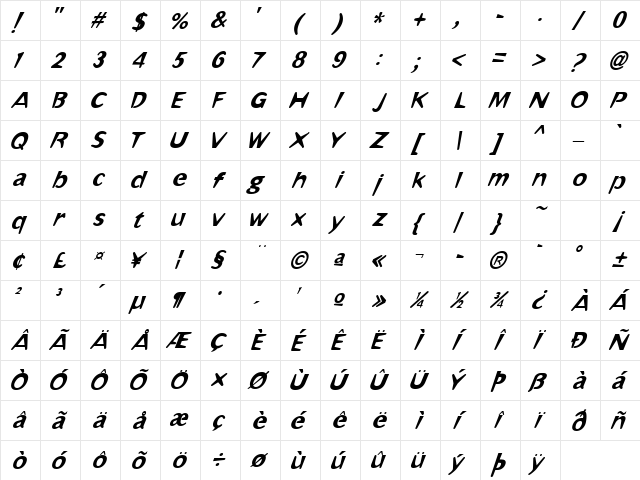
Omaha Italic Regular
Design Context for Omaha Italic Typeface
Omaha Italic is a composed and adaptable typeface that performs quietly and consistently across a wide range of design contexts. Its italic angle brings a sense of urgency and motion to the letterforms.
Pro Tip: Use Omaha Italic for emphasis, pull quotes, and subheadings where its slanted energy can add rhythm to the layout.